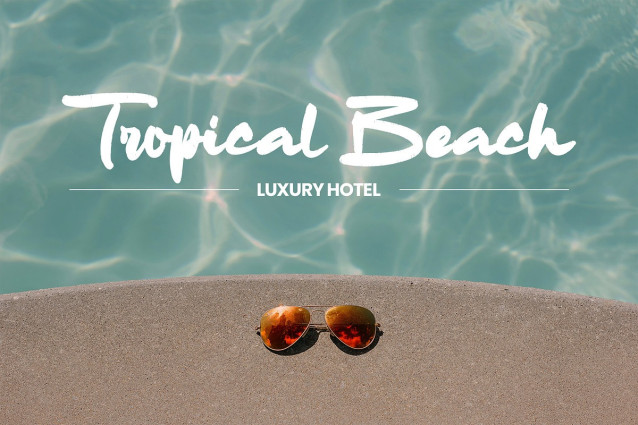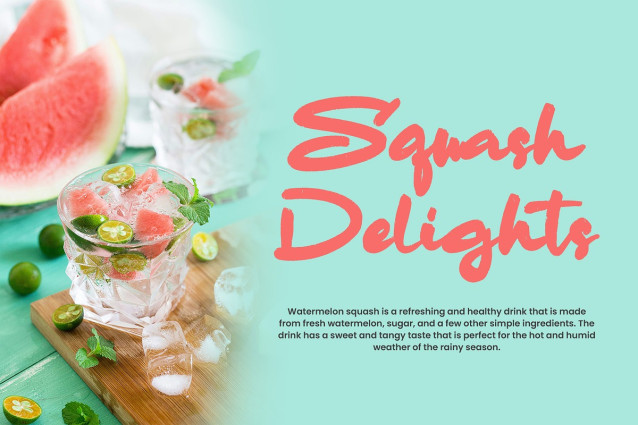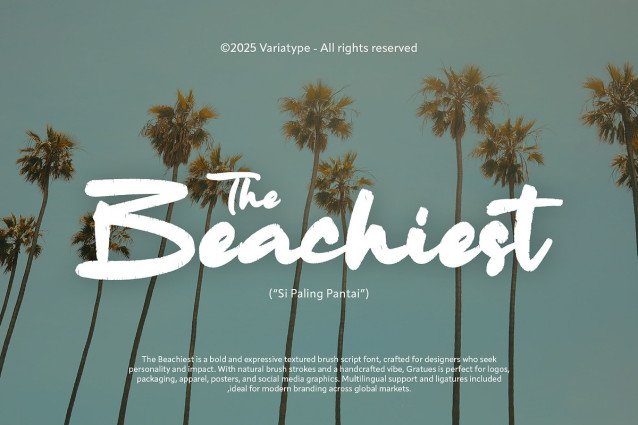
The Beachiest Font
The Beachiest is a bold and expressive textured brush script font, crafted for designers who seek to stand out and make an impact. With natural brush strokes and a handcrafted vibe, The Beachiest is perfect for logos, packaging, apparel, posters, and social media graphics. Multilingual support and ligatures are included, making it ideal for modern branding across global markets.